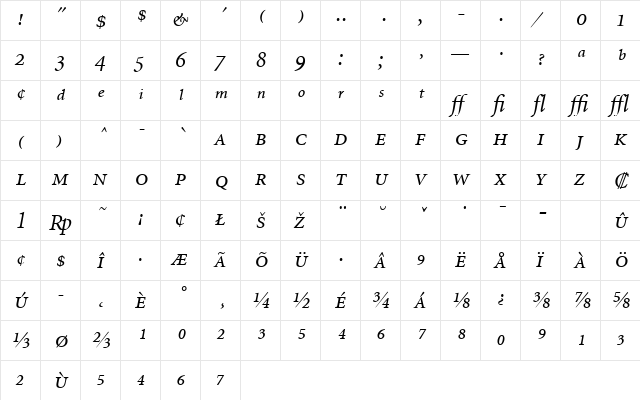
MinionExp-Italic Regular
Design Context for MinionExp-Italic Typeface
MinionExp-Italic offers clean, dependable letterforms without strong stylistic allegiance, making it a practical choice for designers who need flexibility. The slanted form adds forward momentum and visual energy.
Pro Tip: Try MinionExp-Italic for annotation and caption copy alongside an upright companion — the contrast in angle creates a dynamic but ordered typographic system.